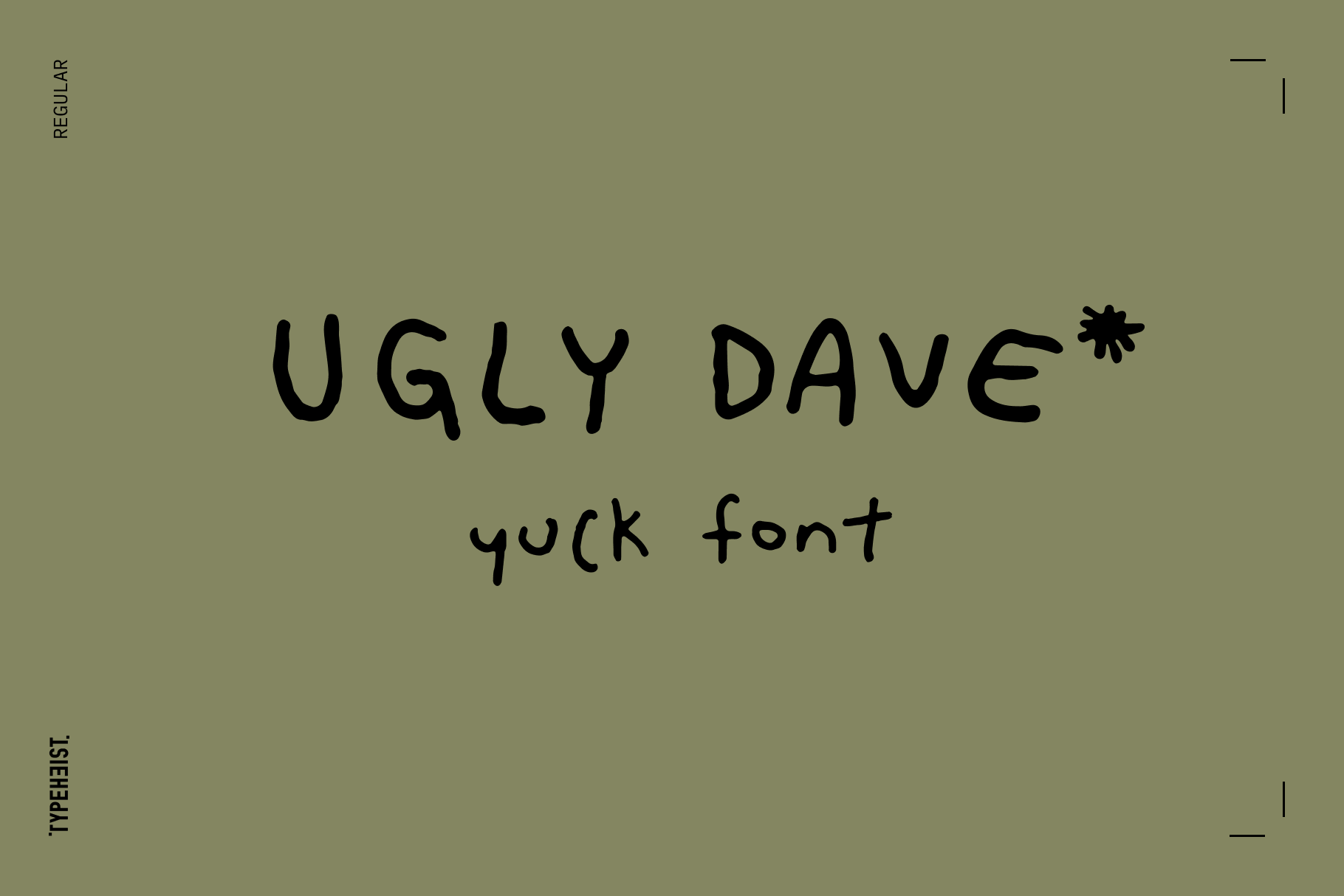
What does your handwriting reveal about you?
Ever wondered why everyone's handwriting is so different? Or how you can 'know' someones handwriting? Is our personality reflected in our handwriting? Turns out, maybe...
Firstly, for a bit of background - I love handwriting (and the quirkier, the better). I love seeing how different people write. It's like a small glimpse into their personality.
But why is our handwriting unique to us? Have you ever wondered why are we able to know who wrote something, just by looking art their handwriting? We are all taught in school to write in a relatively similar way. So why, as an adult, does our handwriting look so different to the person next to us?
The answer lies in the complex interplay between biology, psychology, and culture. Handwriting can be influenced by a range of factors, including our motor skills, cognitive processes, and cultural norms. These factors combine to create a unique and distinctive writing style for each individual - which is why you might be able to tell that Bob wrote that post-it not and not Marge. These are the nuances I love mimicking in my handwritten typefaces.
Handwriting vs psychology
Handwriting is a powerful tool that can be influenced by our thoughts, feelings, and behaviour. Studies have shown that handwriting engages different areas of the brain than typing, leading to better memory retention and increased creativity. Additionally, the unique characteristics of a person's handwriting can reveal insights into their personality, mood, and mental state.
One area of research related to the psychology of handwriting is graphology, which is the study of handwriting analysis. Graphologists believe that the way we write can reveal our personality traits, emotional state, and even our physical health. For example, someone who writes with a heavy hand and strong pressure may be perceived as forceful or aggressive, while someone who writes with a light touch may be seen as gentle or sensitive. There is a whole rabbit hole I could go down here, but I might leave that for another blog post 😎
To keep it simple, research has shown that the size and shape of our letters, the pressure we apply to the pen, and the spacing between letters and words can all provide clues about our personality and emotional state. For example:
Small and cramped handwriting may indicate a reserved or introverted personality, while large and bold handwriting may indicate a more outgoing or confident personality.
Portraying personality in fonts
I like to think about this when creating my fonts. For example, can you see the difference in personality between Manic and Ugly Dave? Although they are both messy handwriting fonts, Manic is erratic and chaotic, whereas Ugly Dave is casual and a little sarcastic. You can see the heavy and angsty strokes throughout Manic, and maybe subconsciously, you might feel that the writer is anxious.
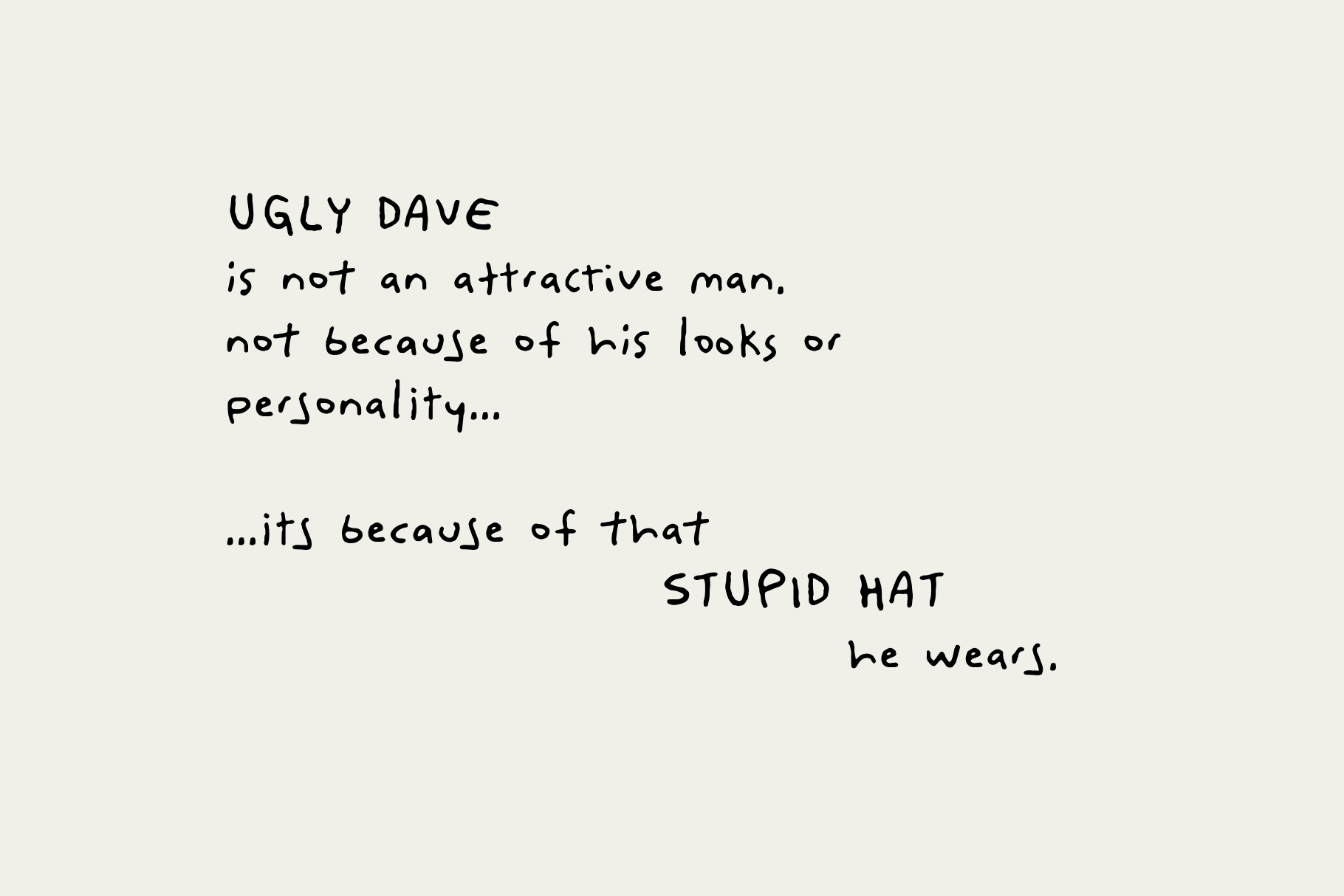
Is handwriting cathartic?
Handwriting can also be used as a therapeutic tool. In fact, some mental health professionals use a technique called handwriting analysis therapy to help patients process their emotions and gain insight into their thoughts and behaviours. This approach involves analysing a patient's handwriting to identify patterns or inconsistencies that may indicate underlying emotional issues.
In addition to handwriting analysis, there is also evidence to suggest that simply writing by hand can have therapeutic benefits. Studies have shown that handwriting can help reduce stress, improve mood, and increase self-awareness. This may be because the act of physically writing by hand slows down our thoughts and allows us to process our emotions more effectively. Maybe this is why I like making handwriting fonts 🙂
If you're interested, take a little look into graphology and the psychology of handwriting - I've found it pretty intriguing so far.